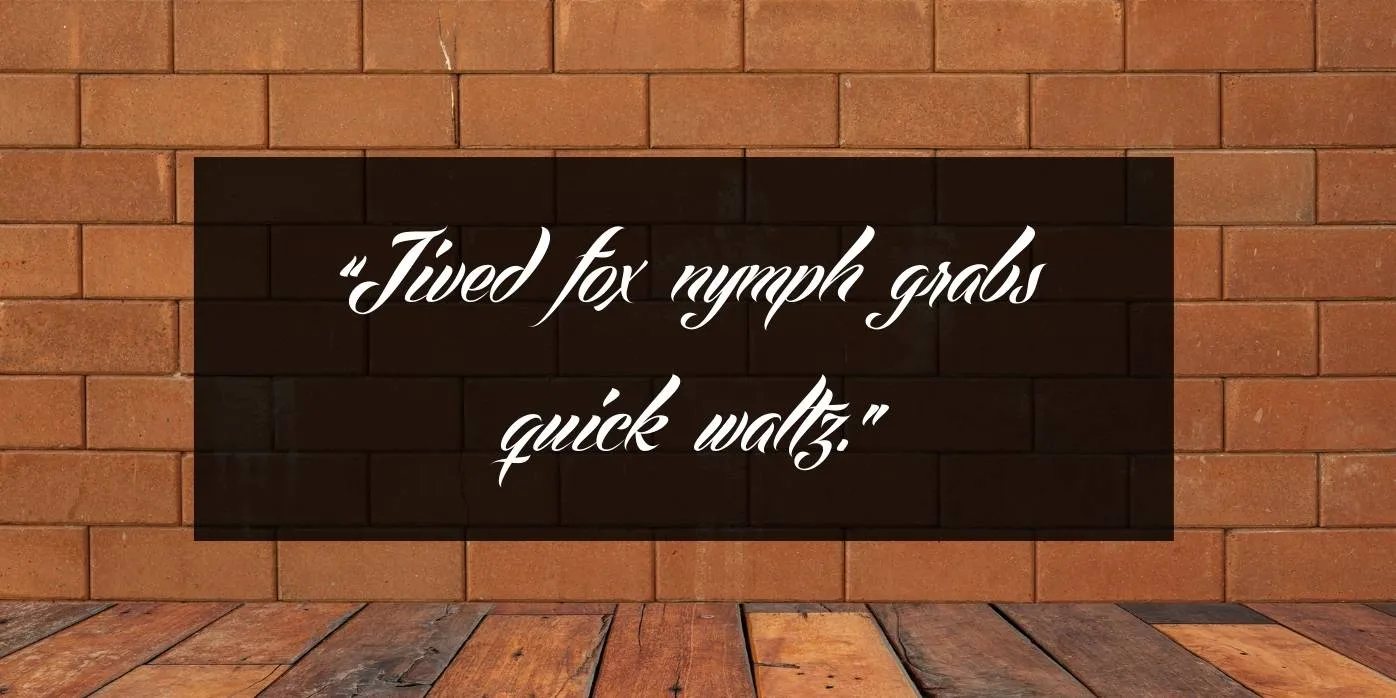
Echinos Park Script Font
Today, we introduce a very amazing typeface that has massive fame in the designing industry named Echinos Park Script Font. It belongs to the Script typeface. This cozy font was developed and published by Mans Greback. It was released to the general public in the year 2012.
Its developer is a Swedish typeface designer who has created many popular fonts such as Brevity Font, Cartier Font, and several others. Echinos Park Script Font was his first attempt to make a new Script typeface that would be suitable for both web and print use. The result is a very versatile font that can be used in a variety of applications. This cute typeface is also best for different programs such as Adobe, and Canva.
Monotype Corsiva Font is alternative to this typeface. This staggering Font is available in two styles: Regular and Bold. Each style contains over 500 characters, including support for international languages. The Regular style is best suited for body text, while the Bold style is ideal for headlines and titles.